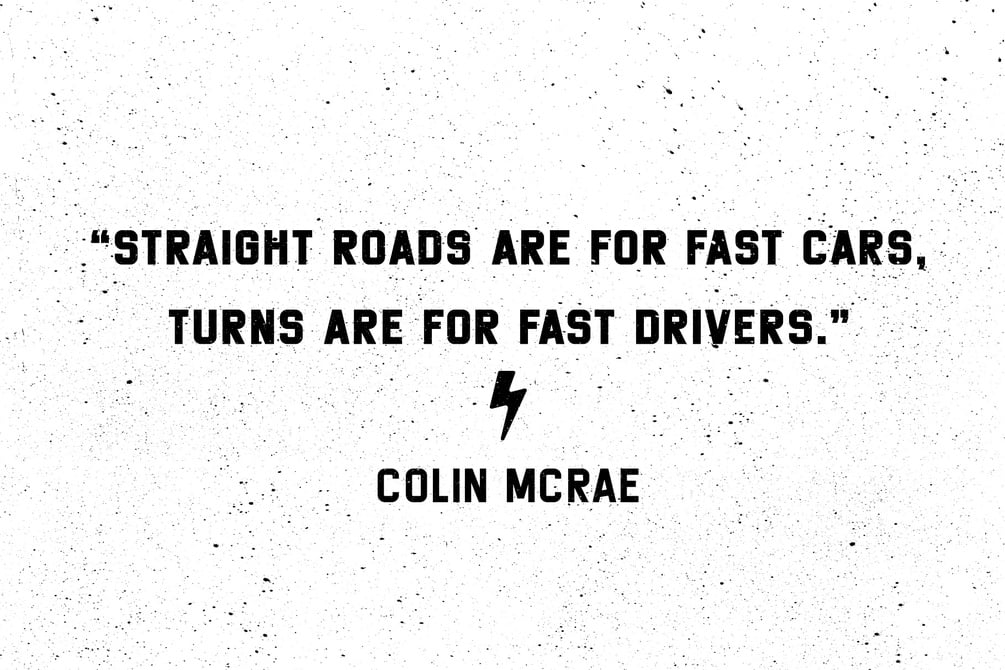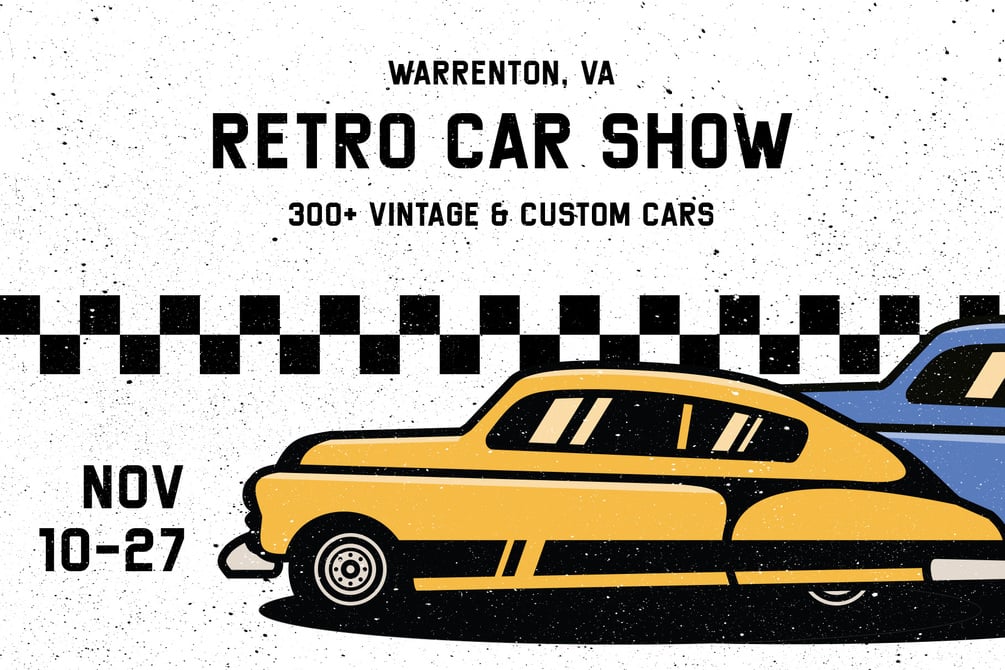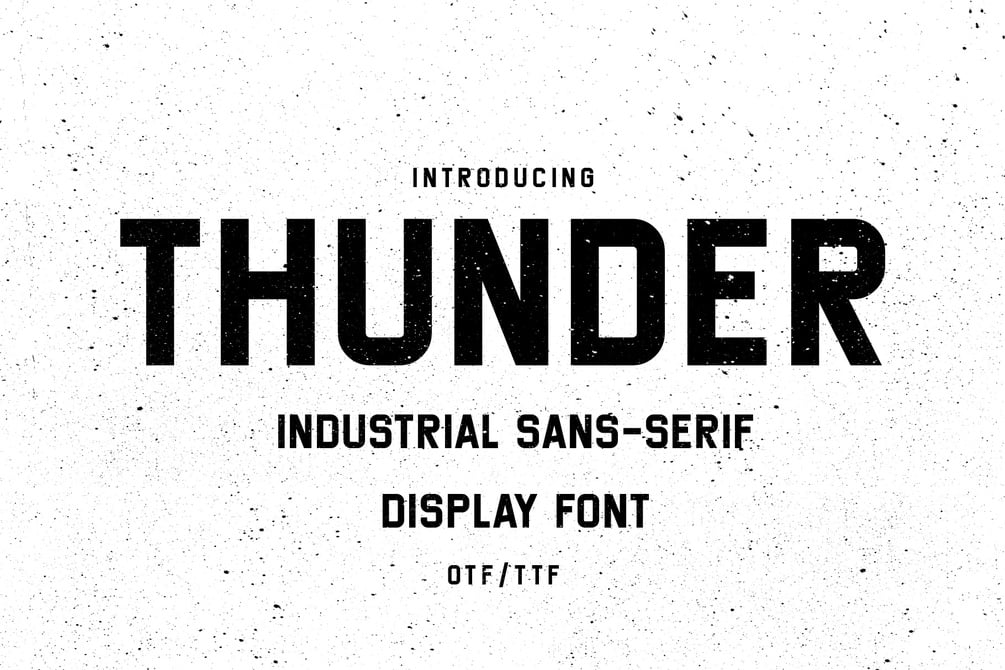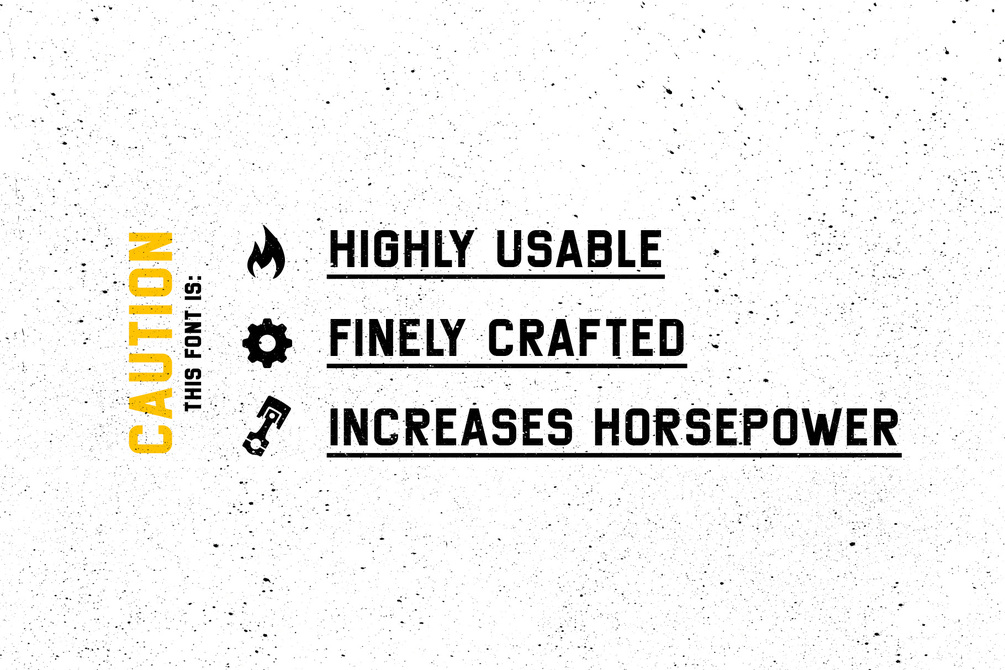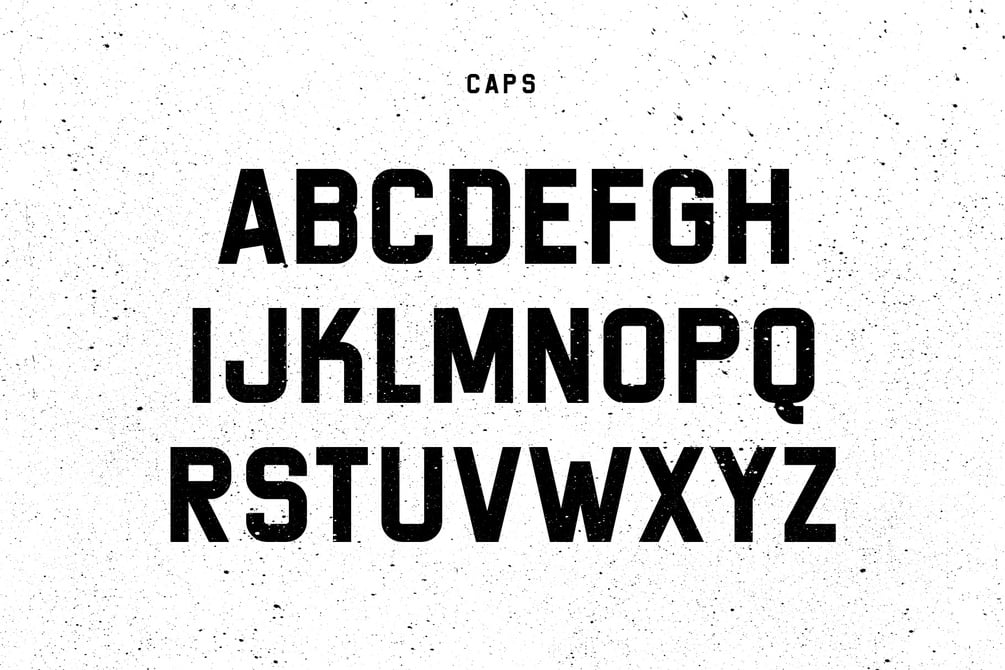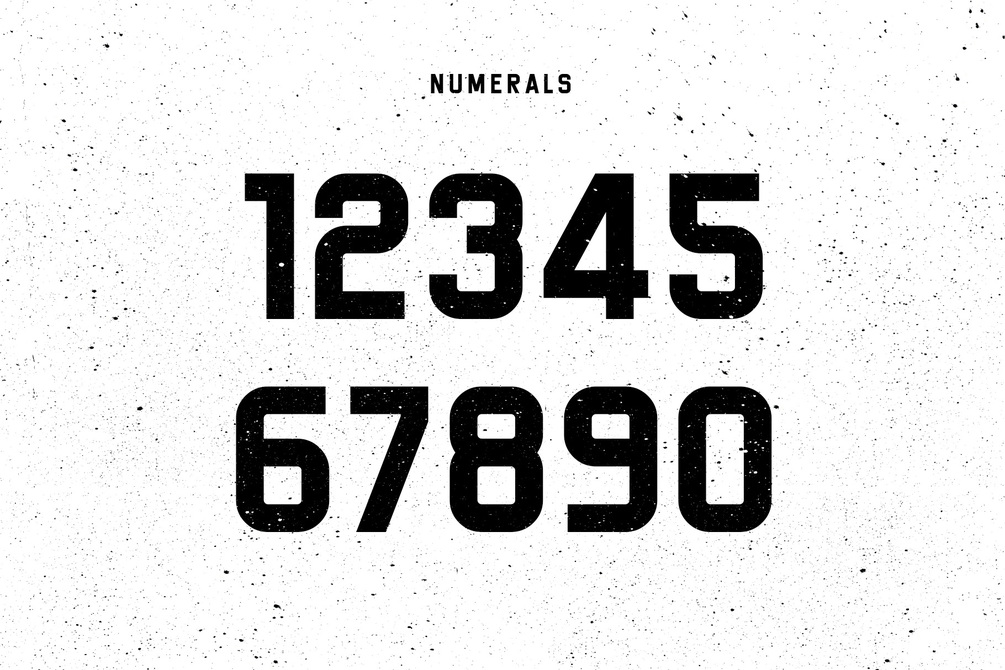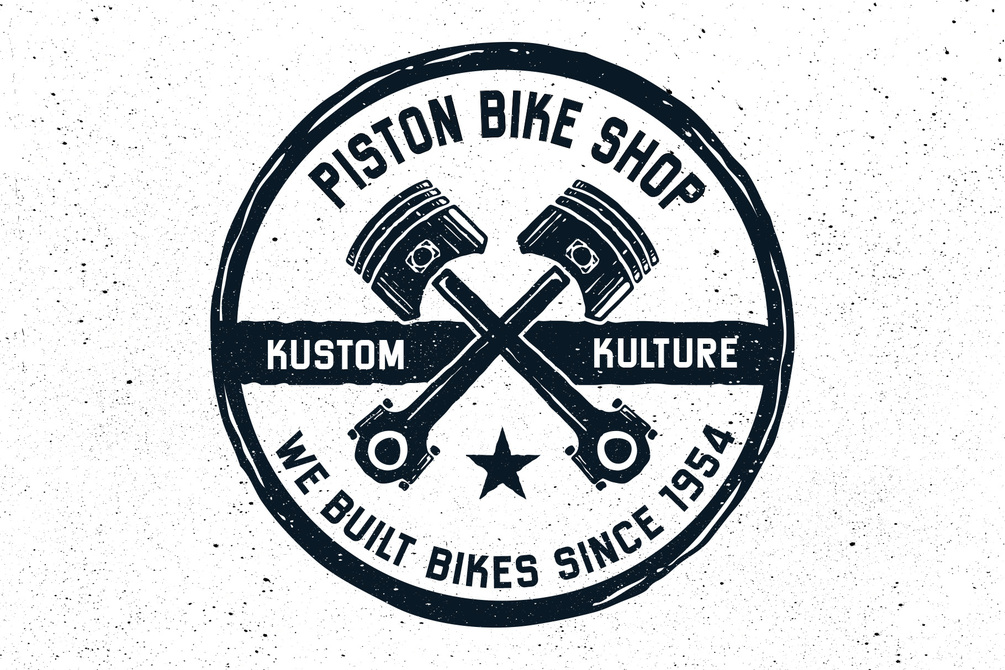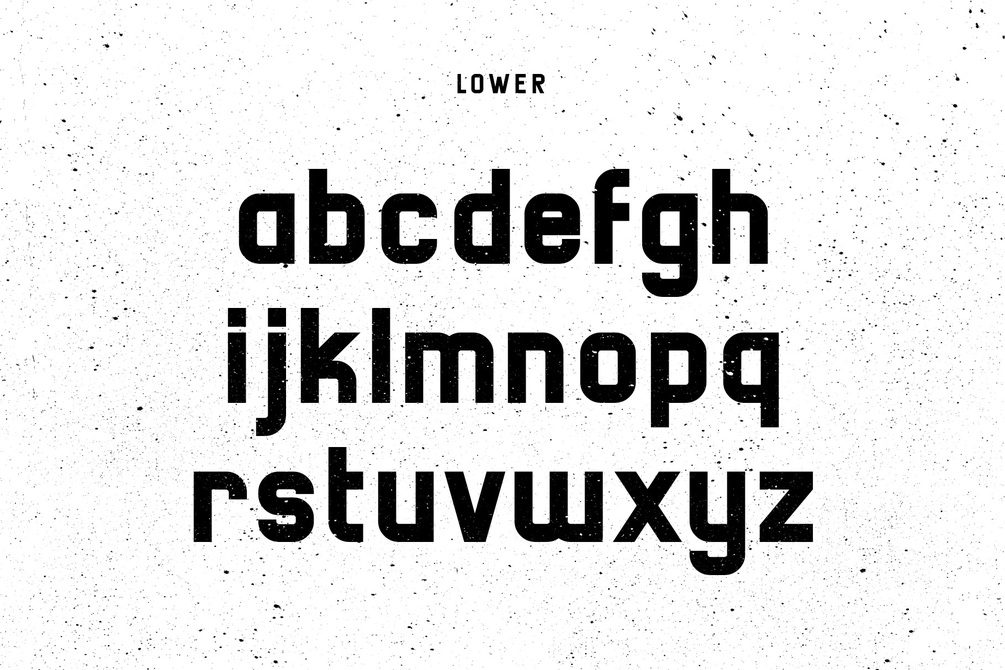
Thunder - Vintage Industrial Typeface
Thunder is a hard working condensed display typeface that you can use over and over throughout your creative career. It is powerful, sophisticated, and confident; conveying a vintage industrial vibe without losing versatility. Thunder is perfect for headlines, signs, logos, posters, packaging, branding, magazines, films and more.